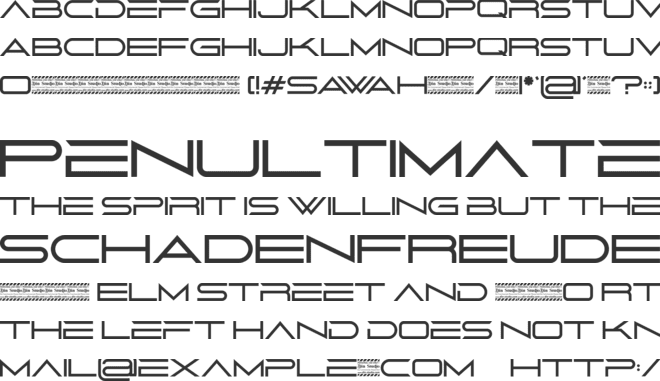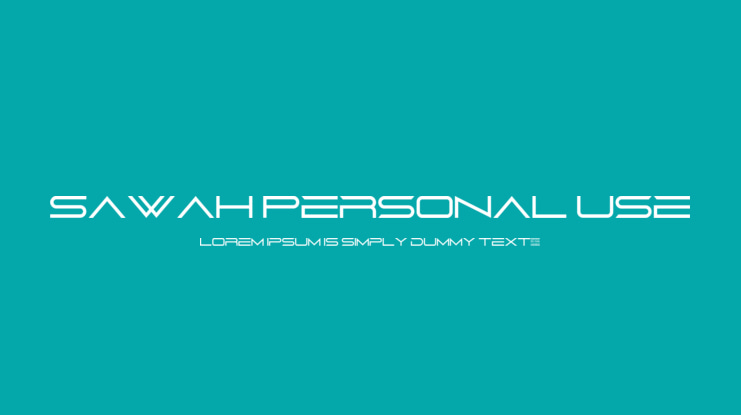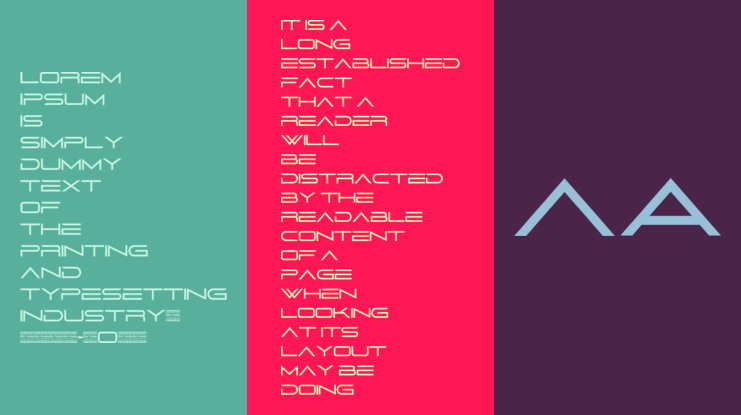
Sawah is a modern and elegant display font. It celebrates abstract shapes in all their eclectic beauty. This font will look truly outstanding in a wide range of contexts. It is the best for logos, branding and quotes.